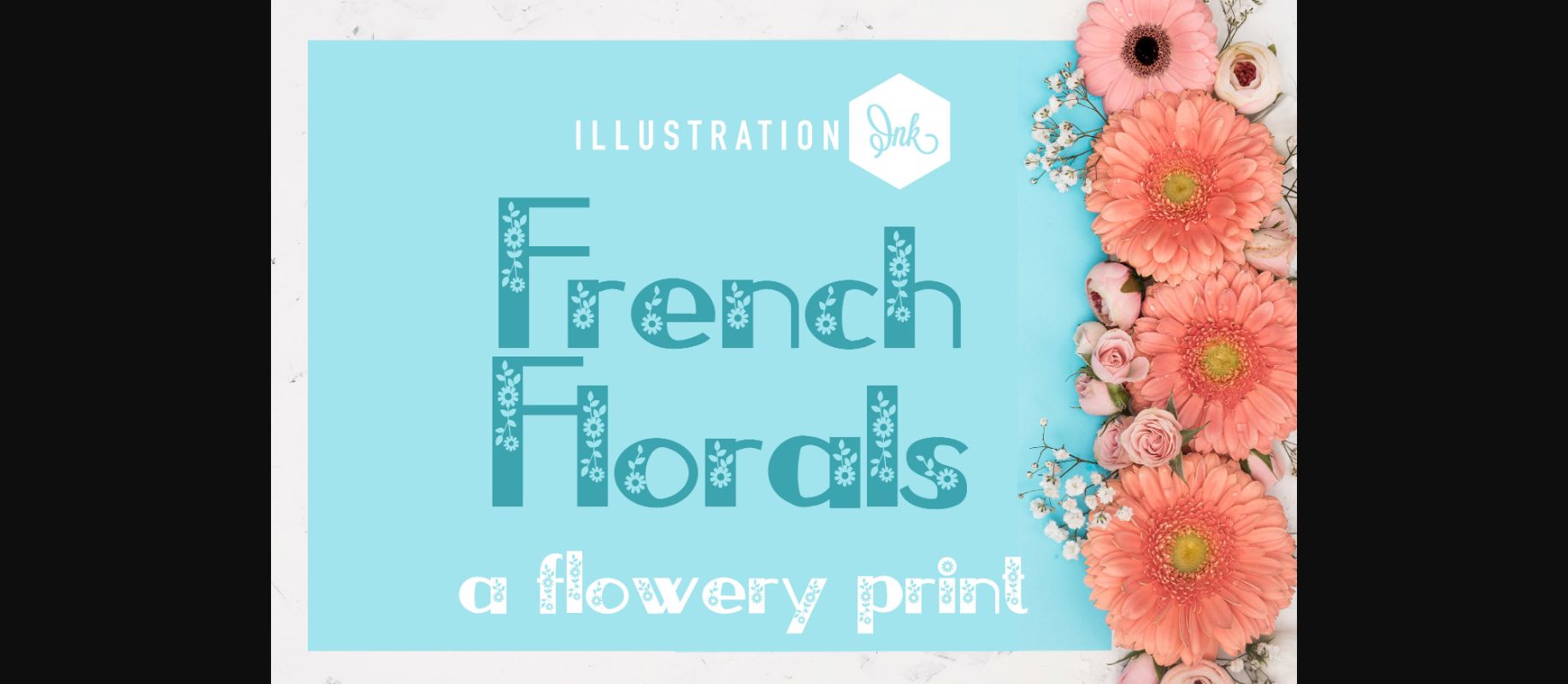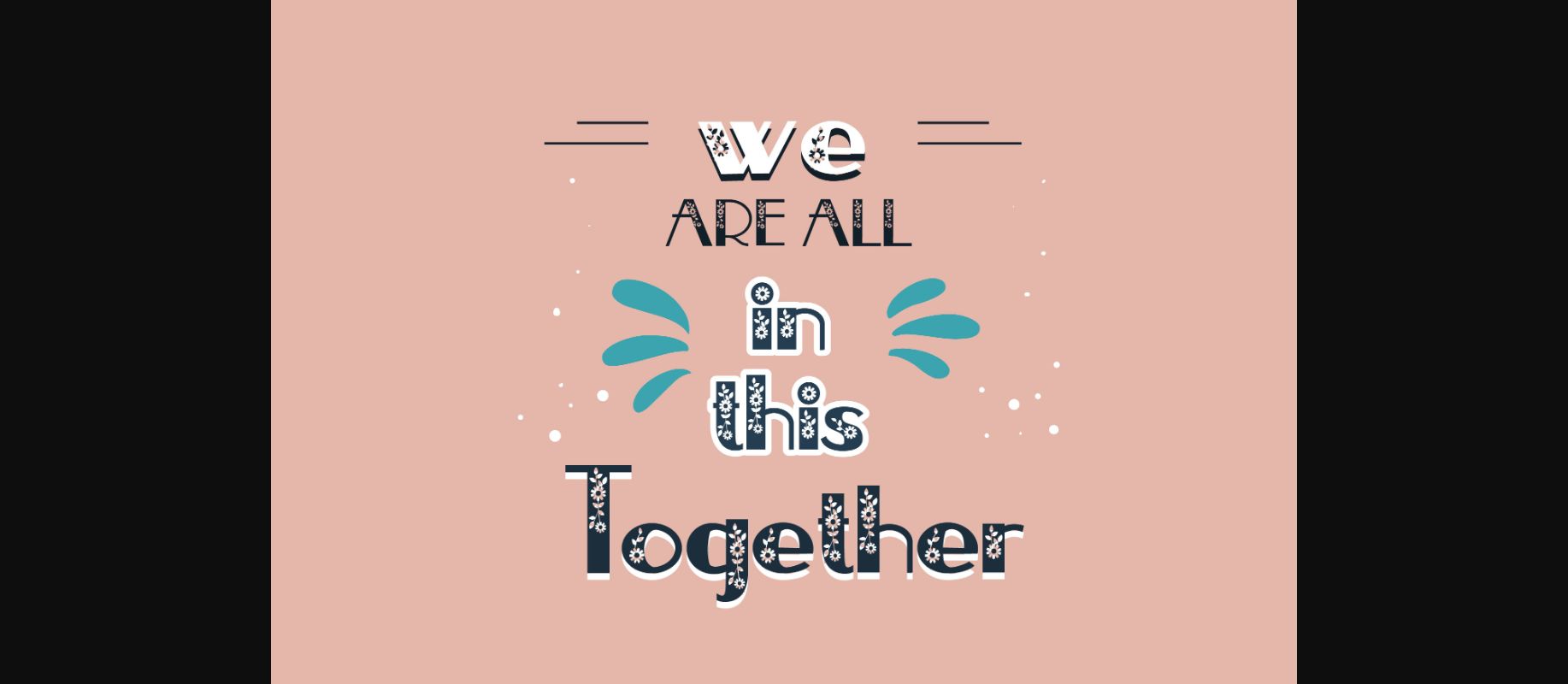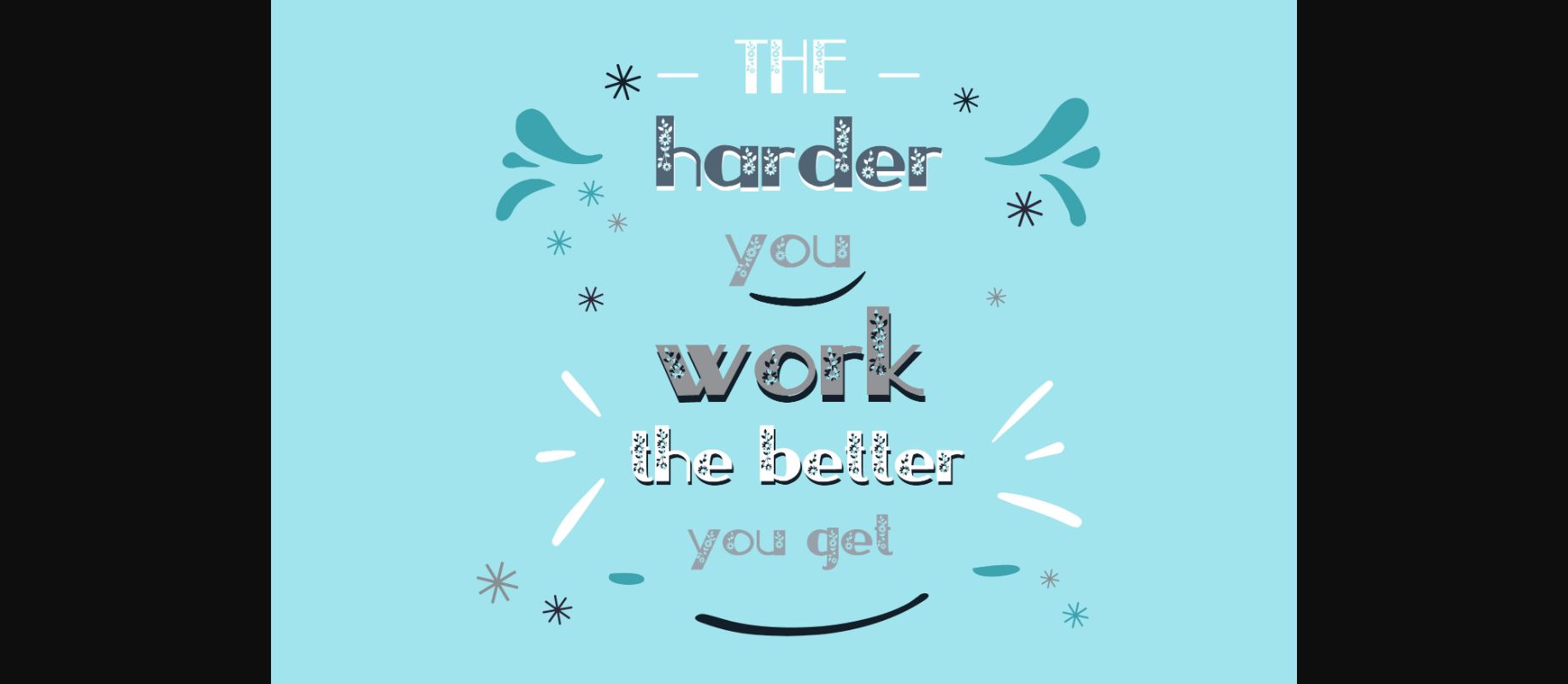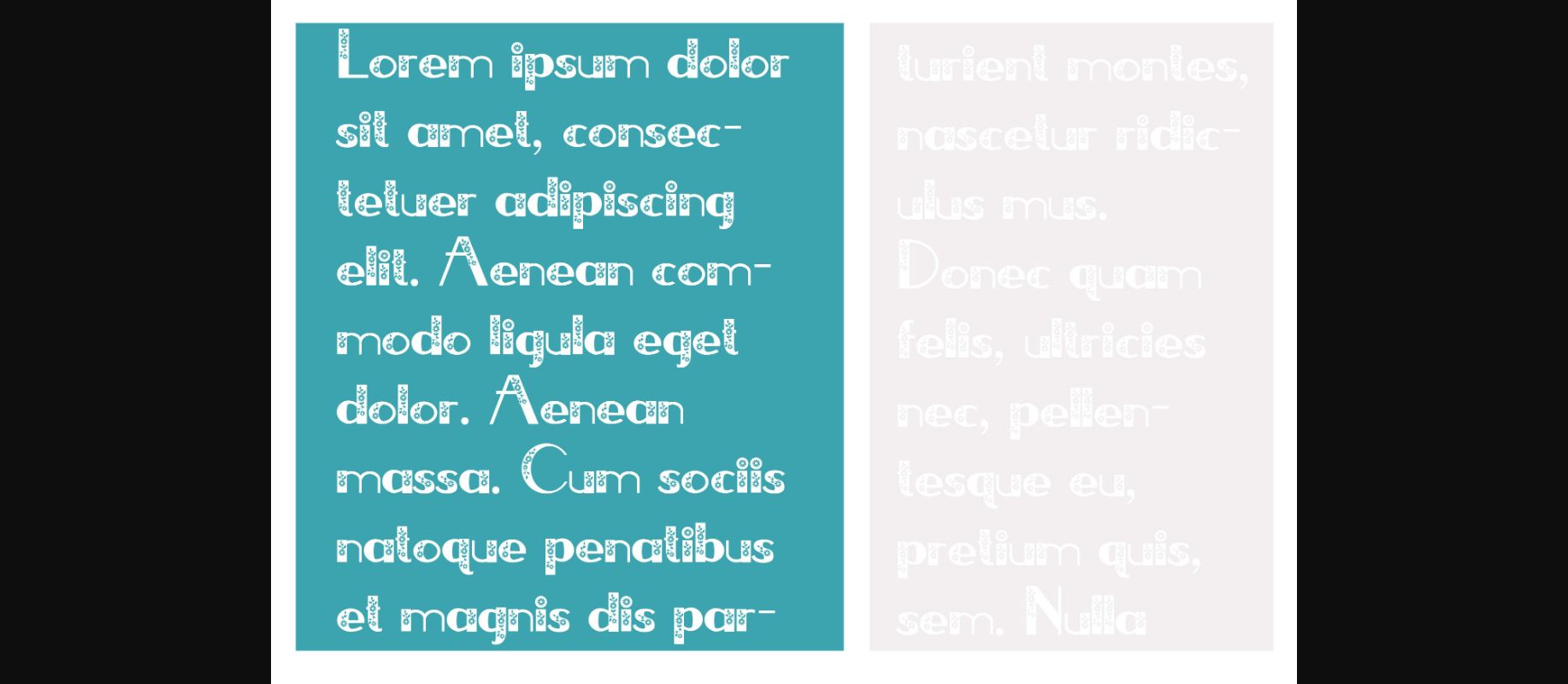
About French Florals Font
This pretty sans serif font features florals throughout. With this font, your messages will become really super cute. This font is perfect for posters, greeting cards, t-shirts, branding materials, quotes, and any other amazing projects you are working on.